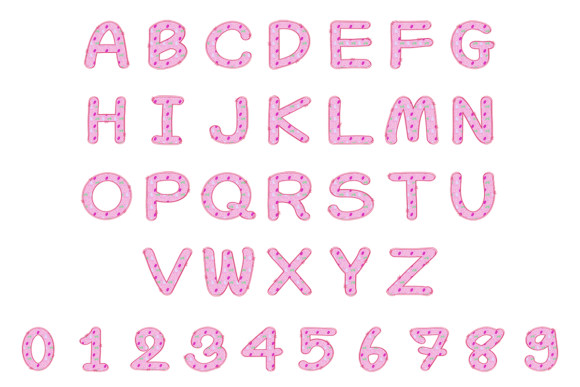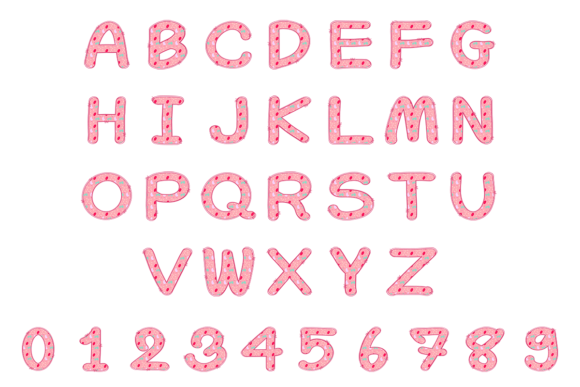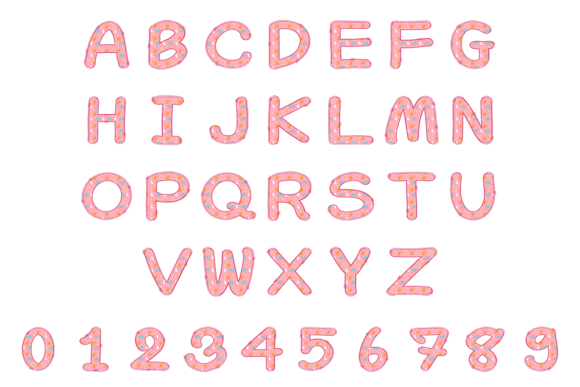
Introducing Blueberry Font: The Sweetest Addition to Your Design Toolbox
As a designer, I’ve had my fair share of frustrating moments – like when you’re working on a project, and you just can’t seem to find the right font. I recall a particularly challenging Valentine’s Day project where I needed a font that was both adorable and versatile. That’s when I stumbled upon the Blueberry Font, and I just knew I had to share it with the world! 🎉
A Personal Love Affair with Blueberry Font
I’m thrilled to proudly present the most adorable color fonts for Valentine’s Day or anything you want to use. You can use it for every purpose with a design that is intended from my heart for you to enjoy every design. Ready to give good fonts to everyone. Your options are limitless.
What I Love About Blueberry Font ✨
- ✅ Adorable and playful design that’s perfect for Valentine’s Day, anniversaries, or any occasion that requires a touch of whimsy
- 🎨 Color font (Opentype-SVG) with stunning visual effects
The Story Behind Blueberry Font
As a designer, I’m always on the lookout for inspiration – and sometimes, it comes from the most unexpected places. I created Blueberry Font as a gift to my loved ones, and I’m thrilled to share it with the world. My goal was to create a font that’s both adorable and versatile, with a range of OpenType features and glyphs to make it easy to use and customize.